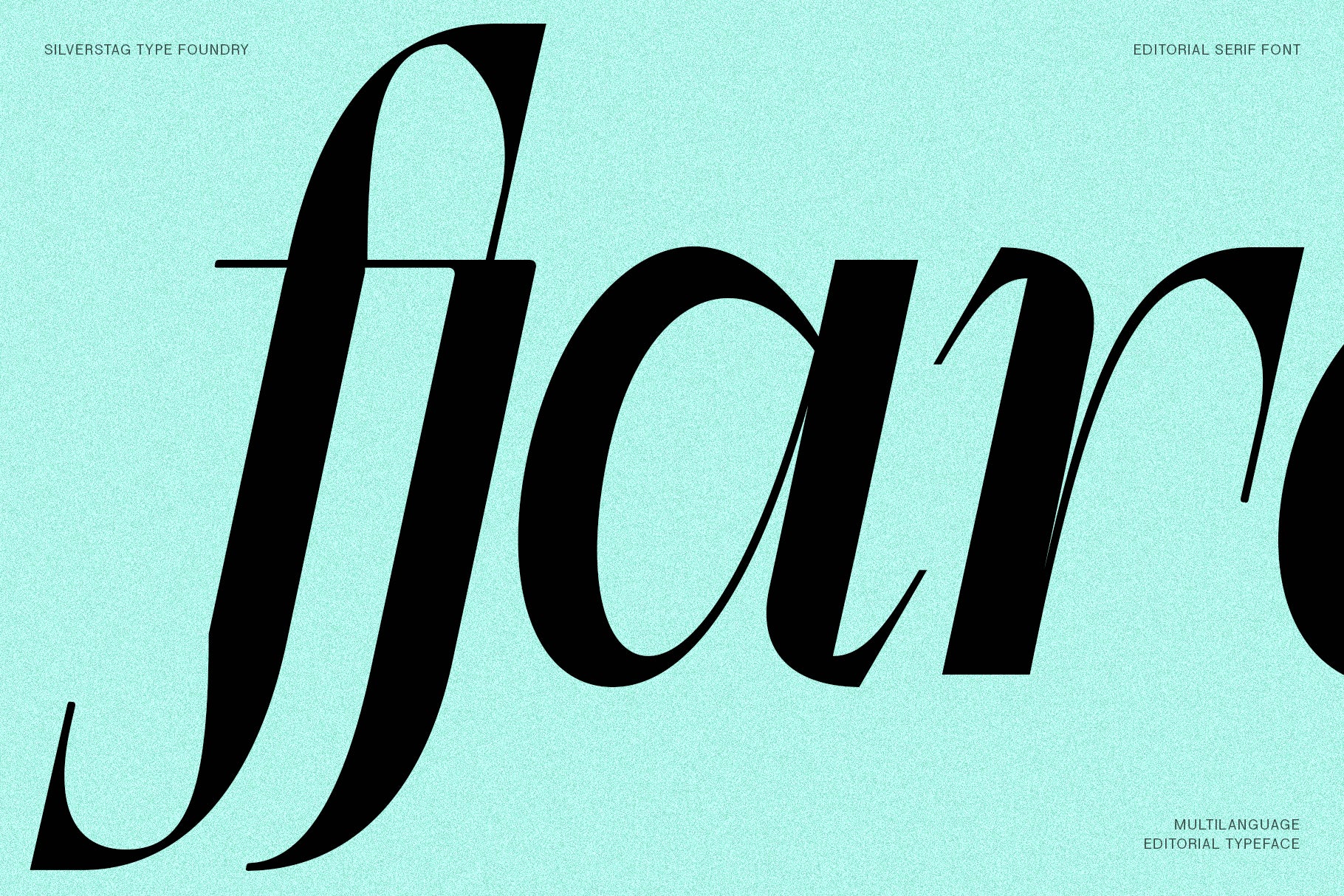
Finality is a high-contrast editorial serif typeface designed for sophistication and expression. With its refined proportions, gracefully rounded serifs, and 65+ custom ligatures, Finality blends classical elegance with modern typographic detail—perfect for branding, magazine layouts, invitations, and luxury packaging.
The typeface includes two styles:
Finality is a high-contrast editorial serif typeface designed for sophistication and expression. With its refined proportions, gracefully rounded serifs, and 65+ custom ligatures, Finality blends classical elegance with modern typographic detail—perfect for branding, magazine layouts, invitations, and luxury packaging.
The typeface includes two styles:
Finality supports 90+ languages, making it a smart choice for global creatives and multilingual editorial projects. Whether you’re crafting fashion campaigns, book covers, wedding collateral, or digital storytelling, Finality delivers both beauty and function in every form.